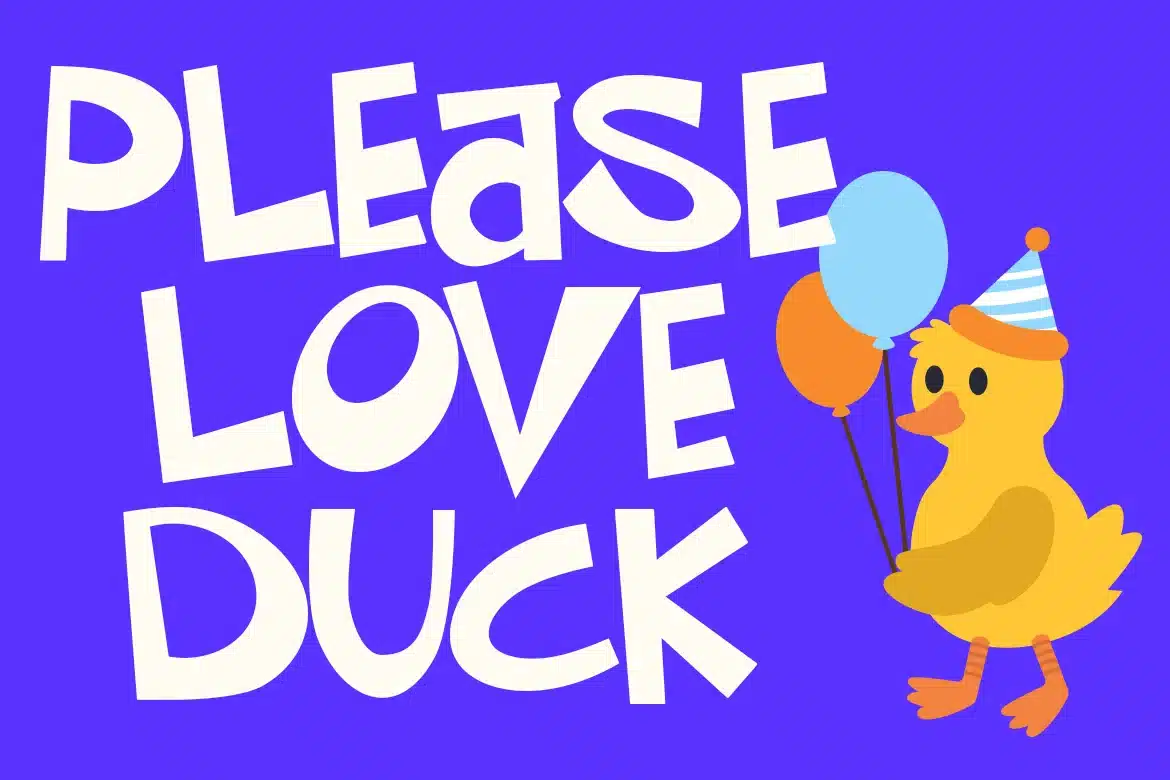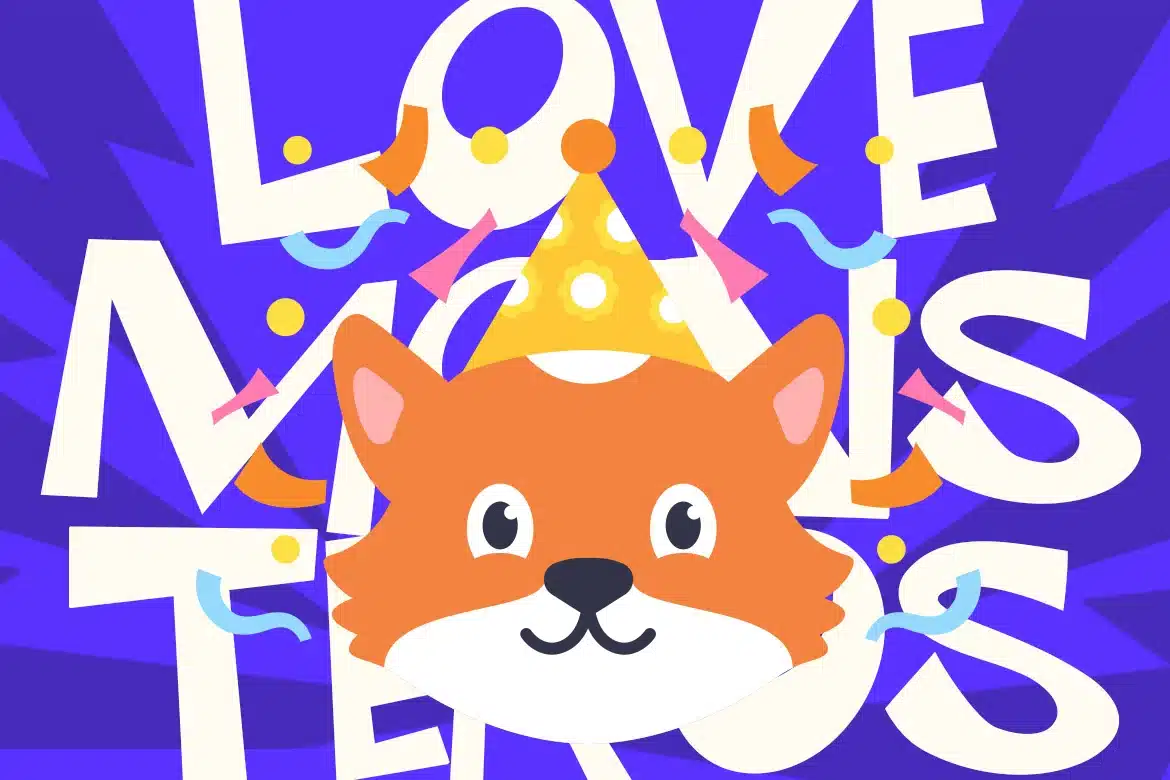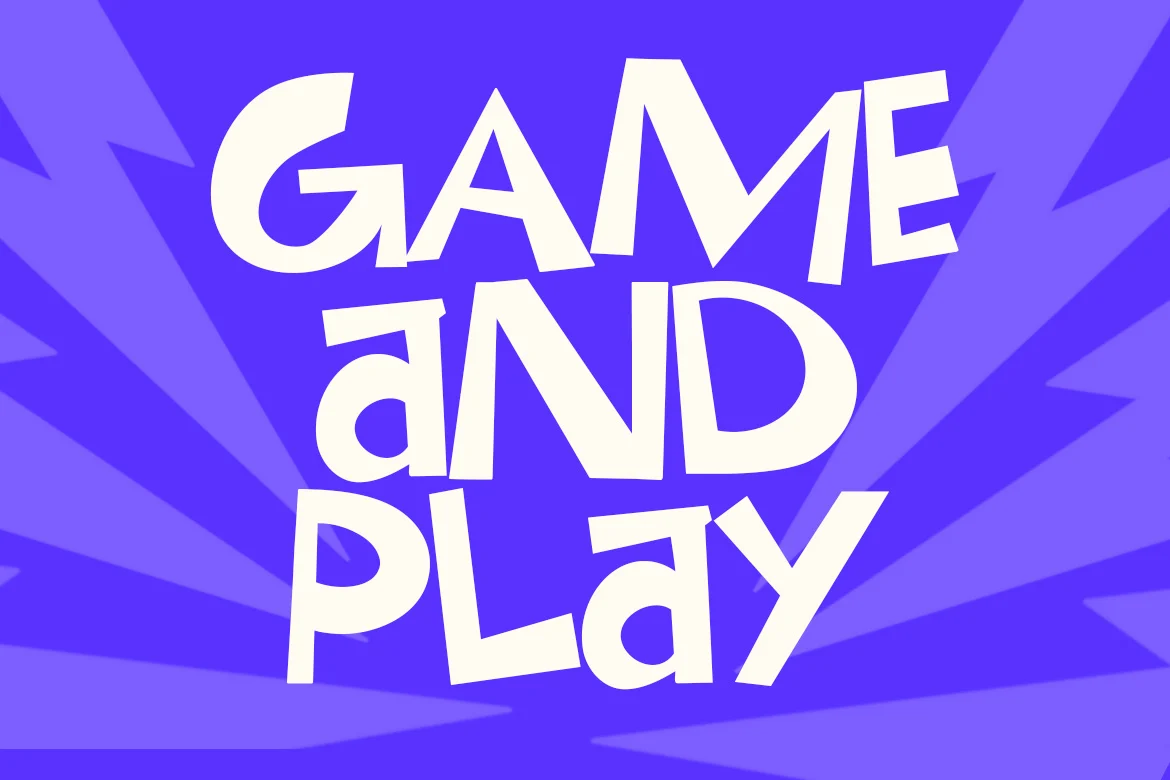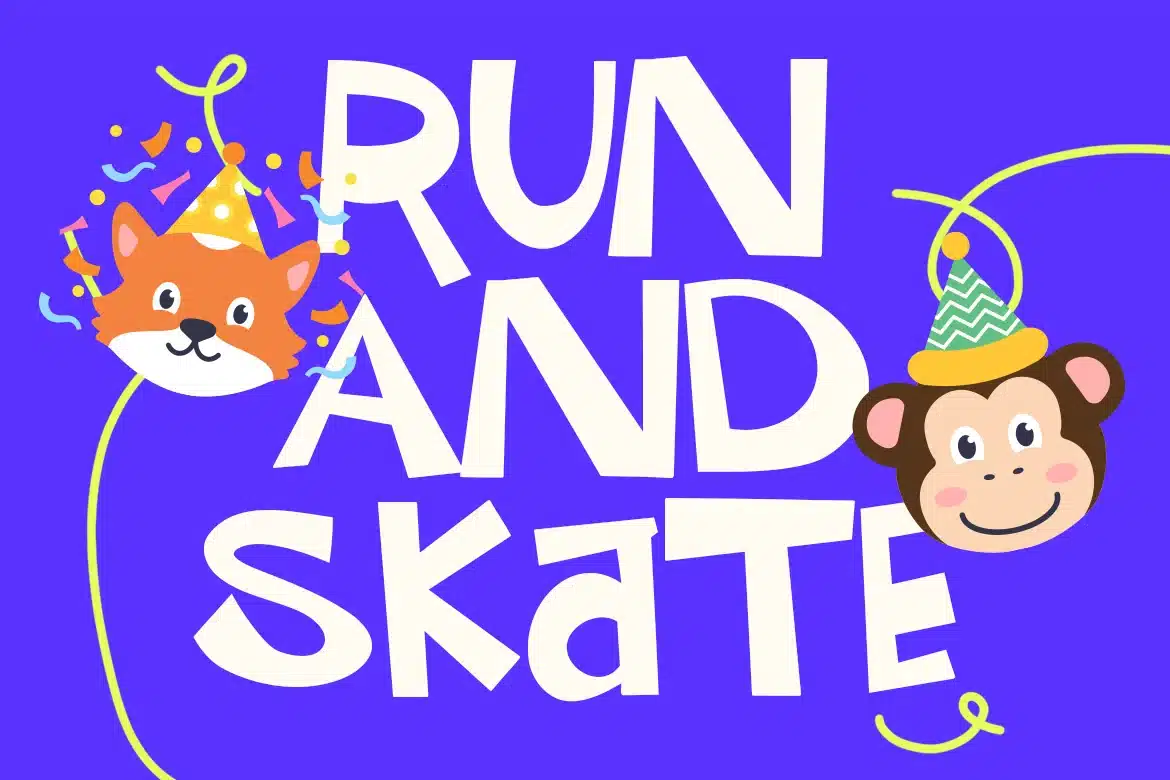
Kaba Friend – Playful Display Font
Kaba Friend is a bold, chunky display font with a whimsical, hand-drawn aesthetic. It features thick, irregular strokes and uneven baselines that create a sense of movement and fun. The letterforms are characterized by rounded terminals and varying widths, giving it a friendly, approachable vibe. The lack of sharp corners and the organic, almost paper-cut feel make it ideal for children's books, toy packaging, and vibrant branding projects. The contrast is low, maintaining a consistent weight that ensures high visibility and impact in large-scale applications.
- Allcaps Character